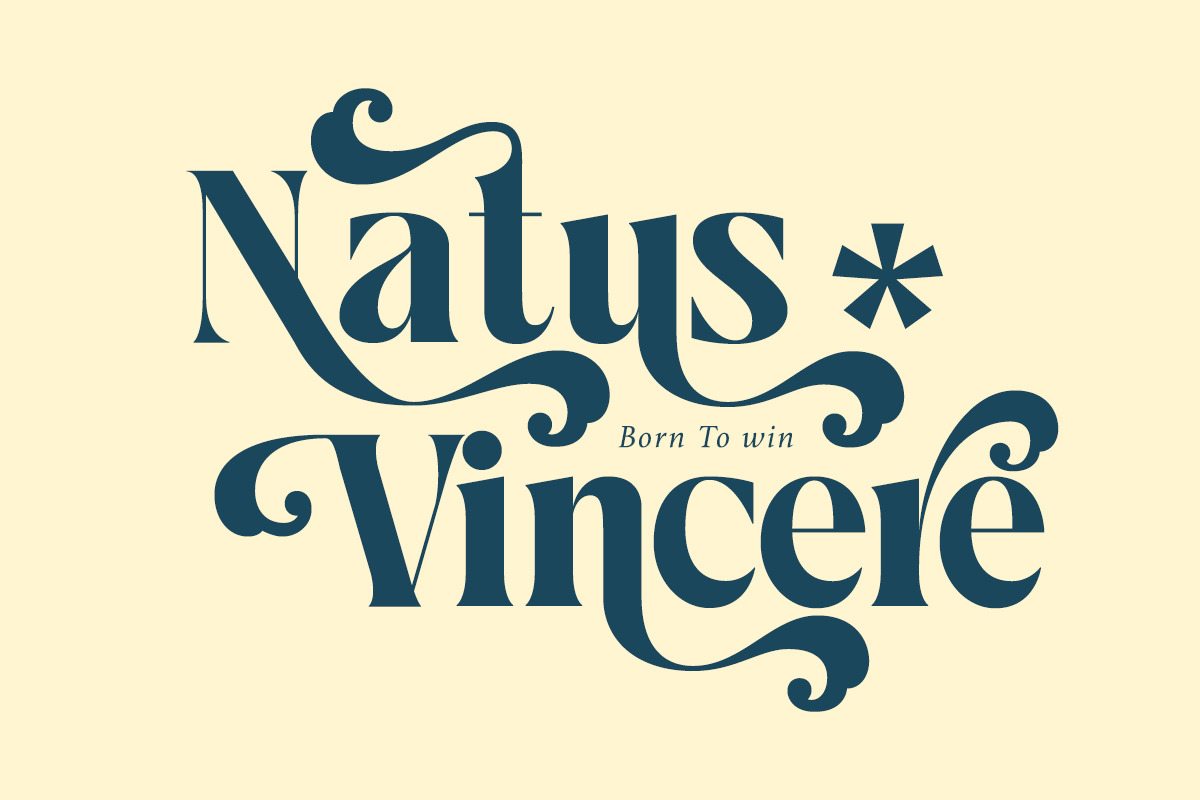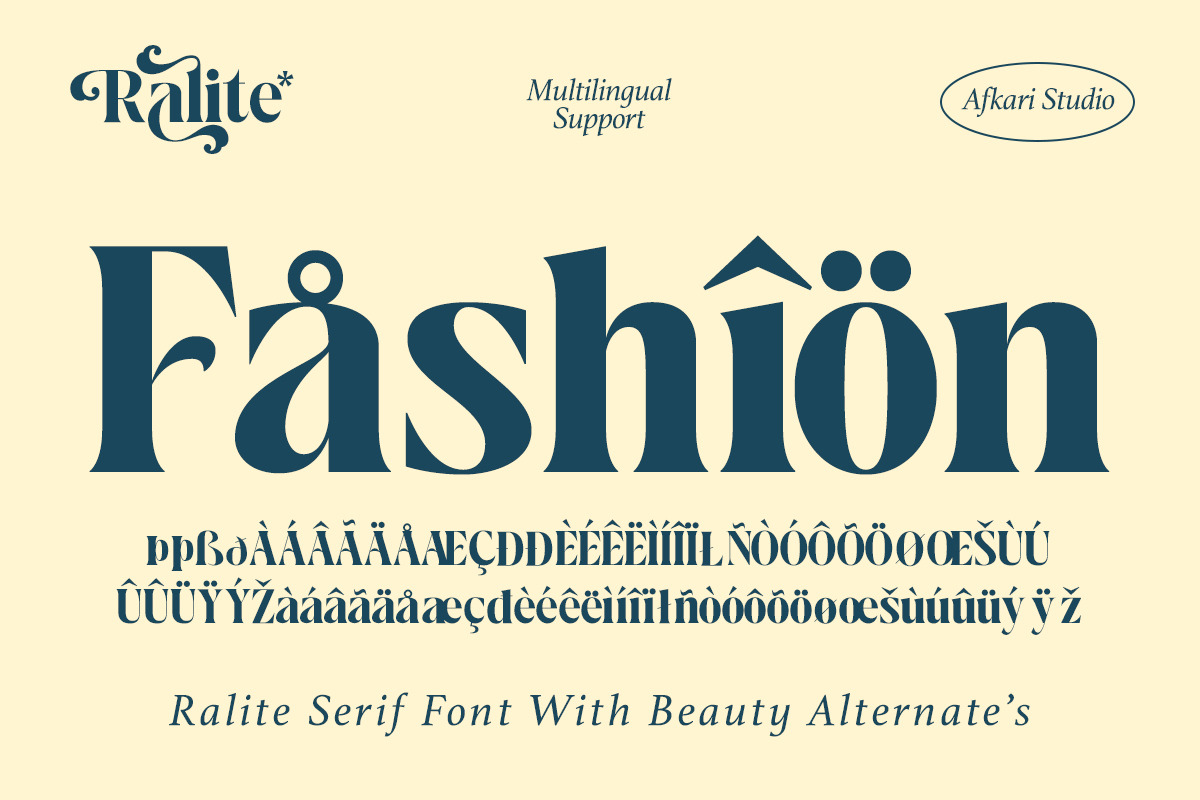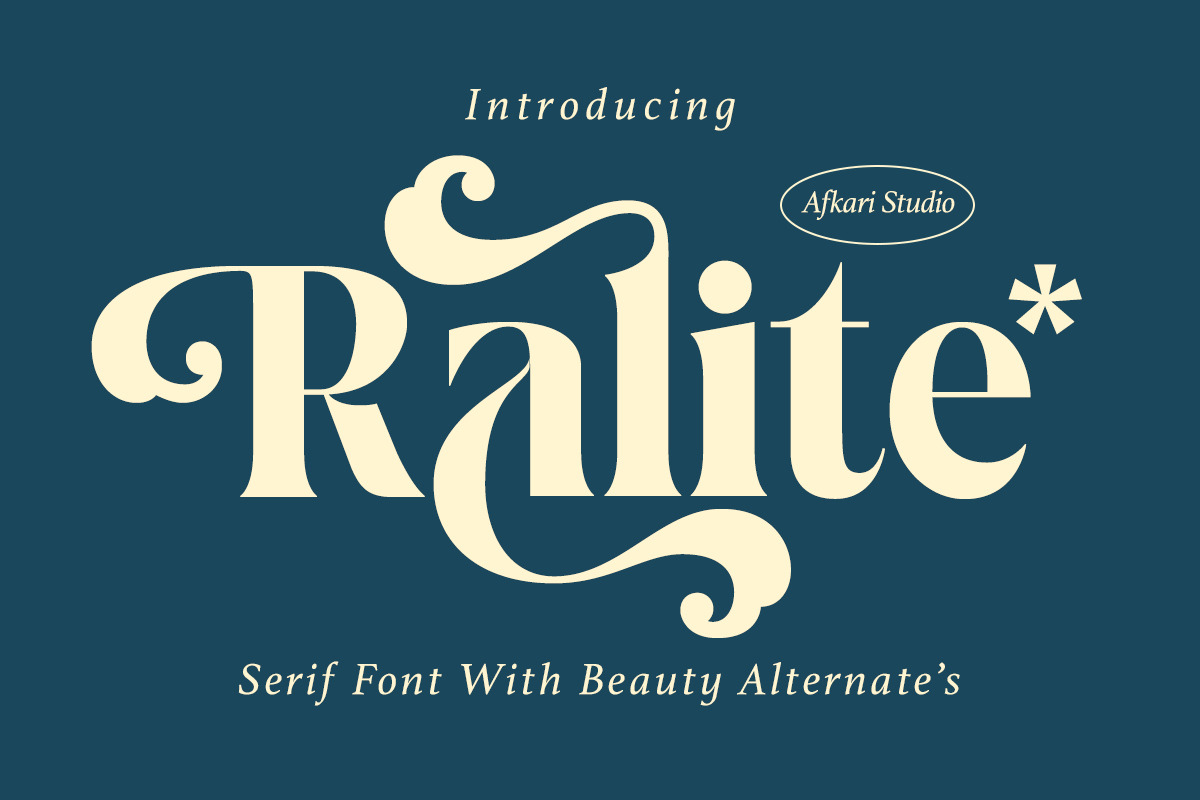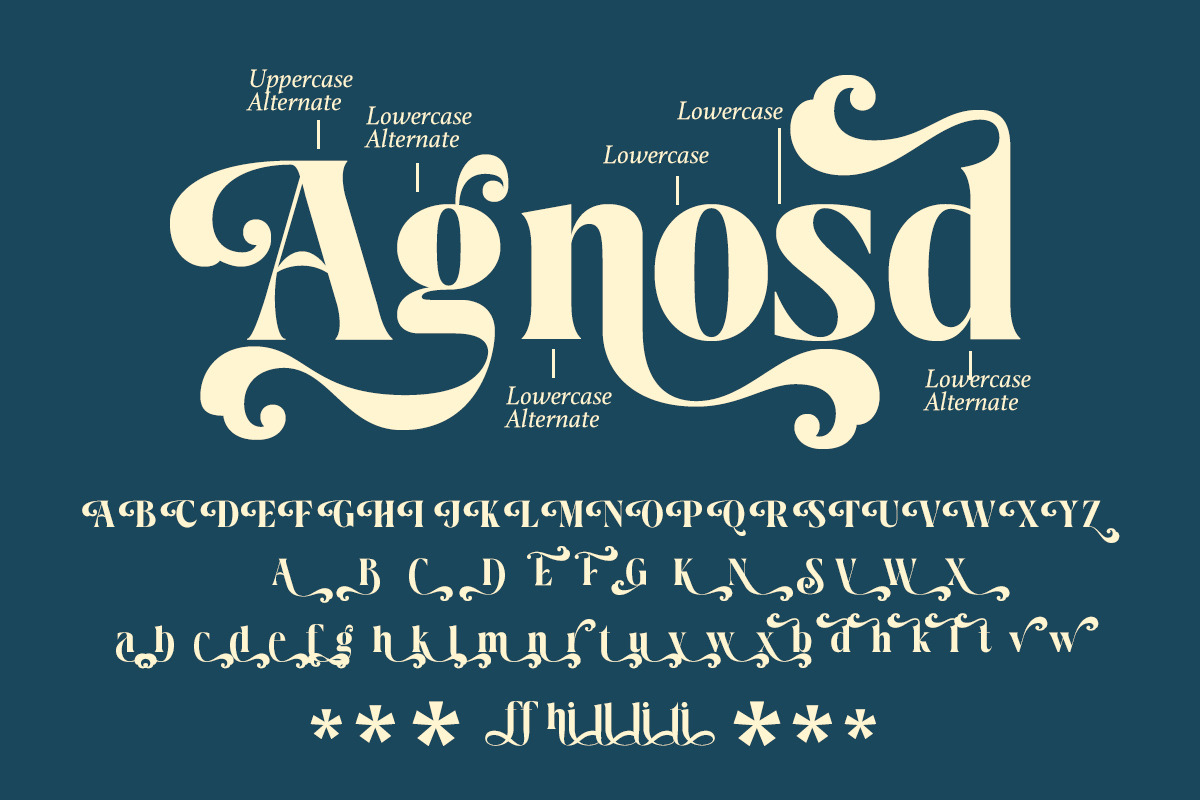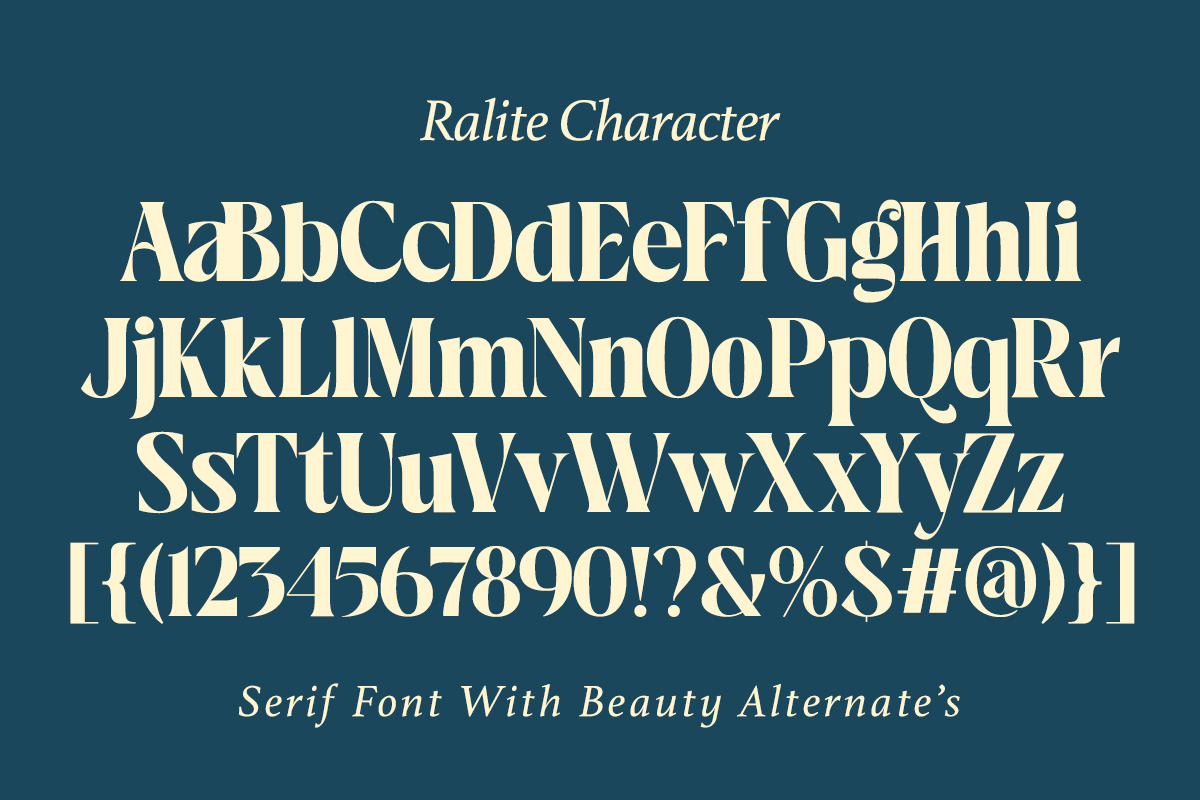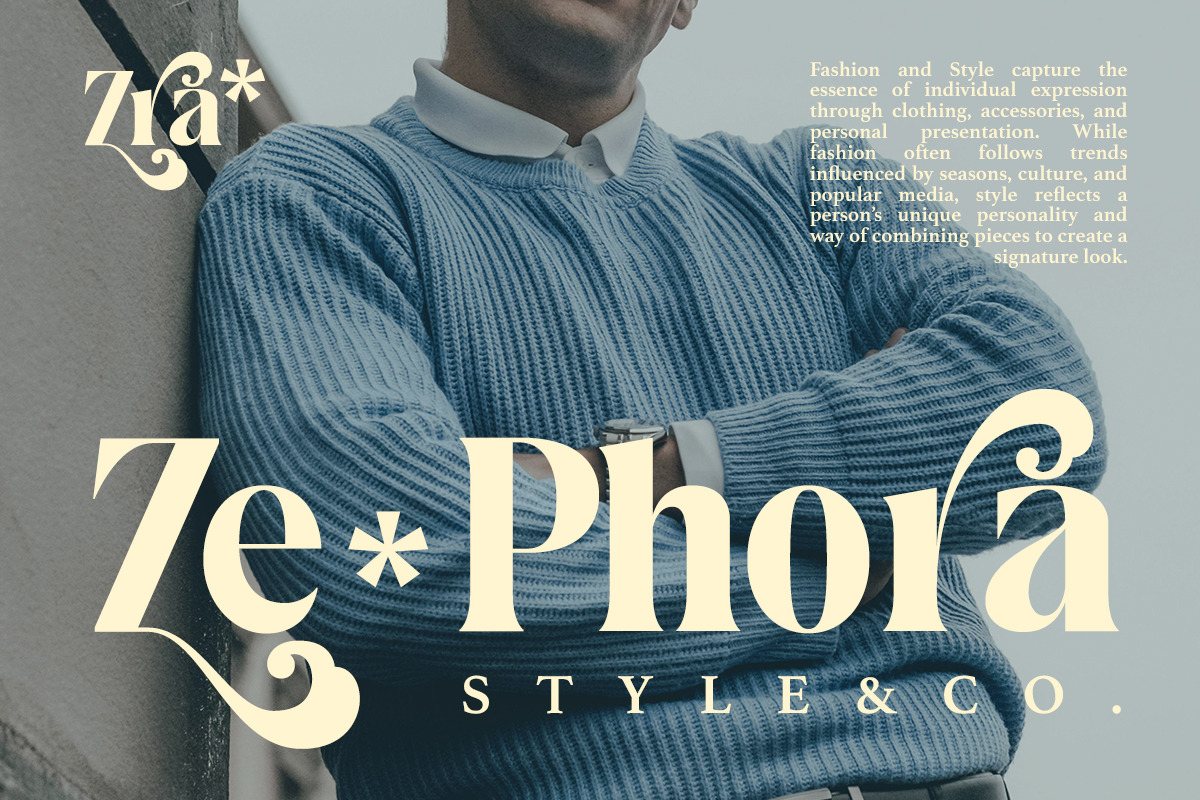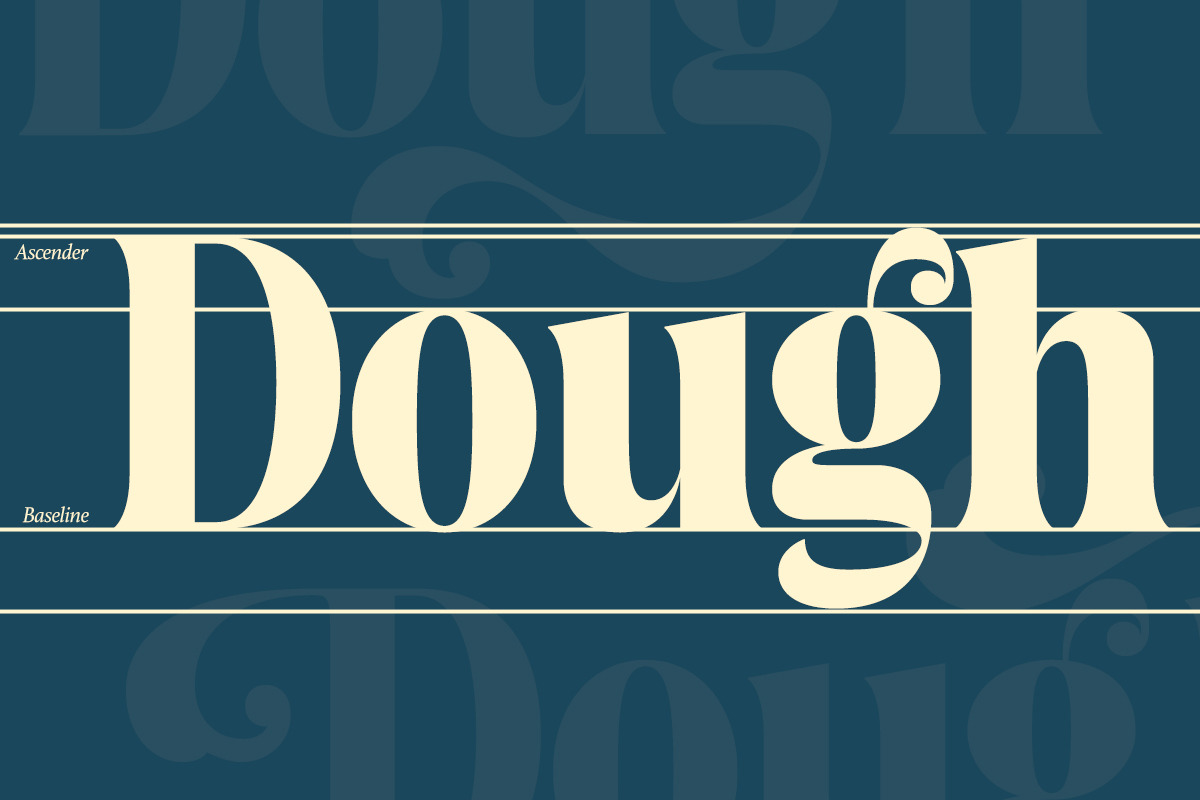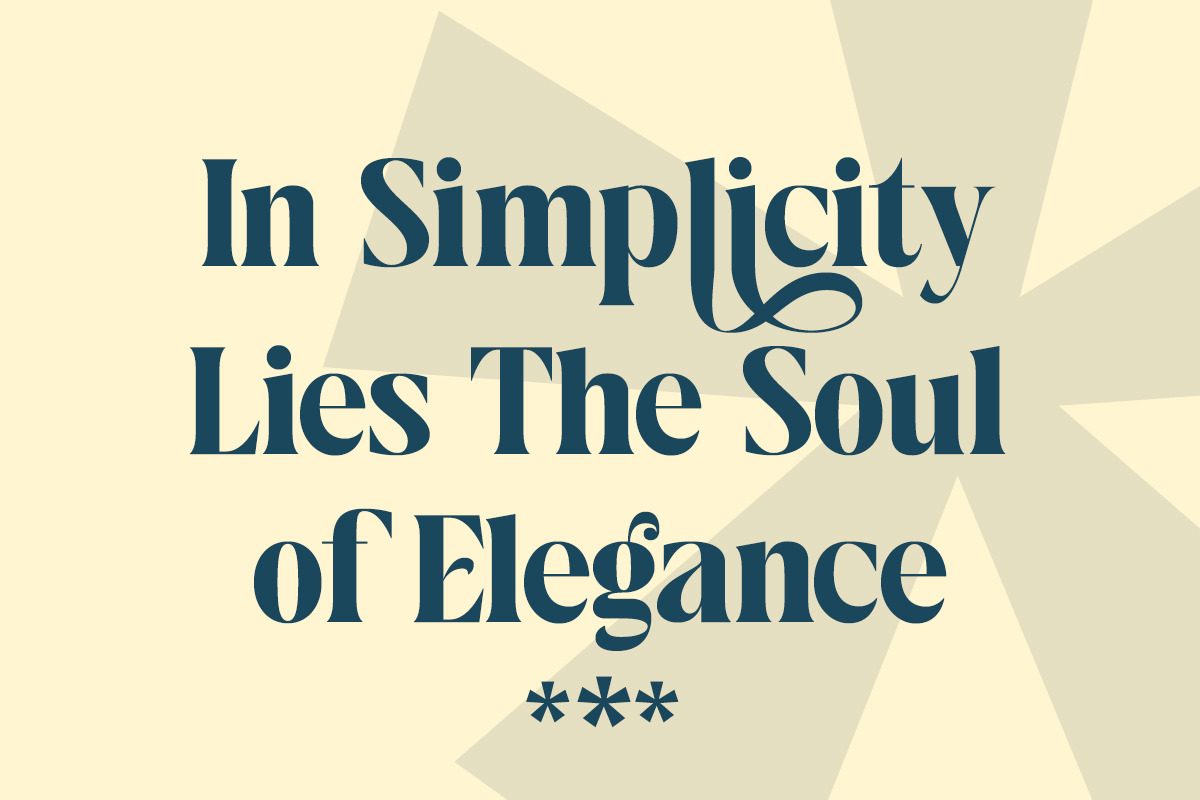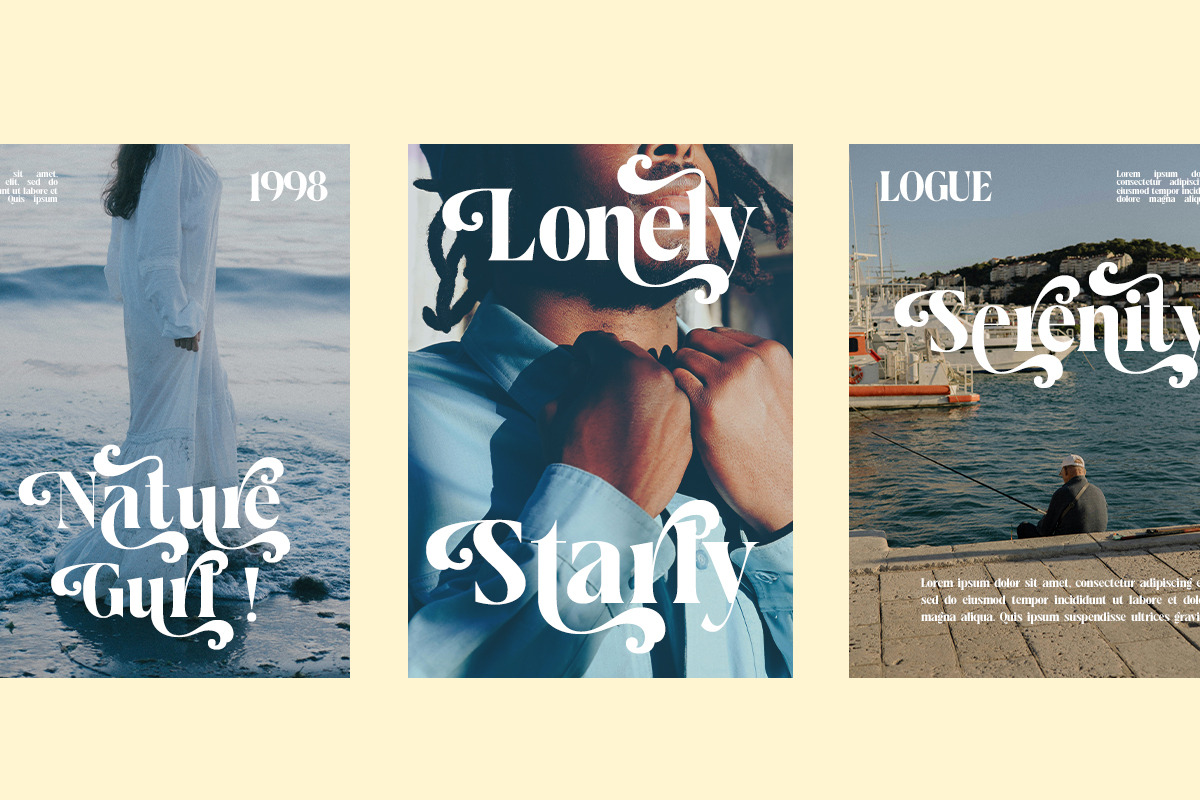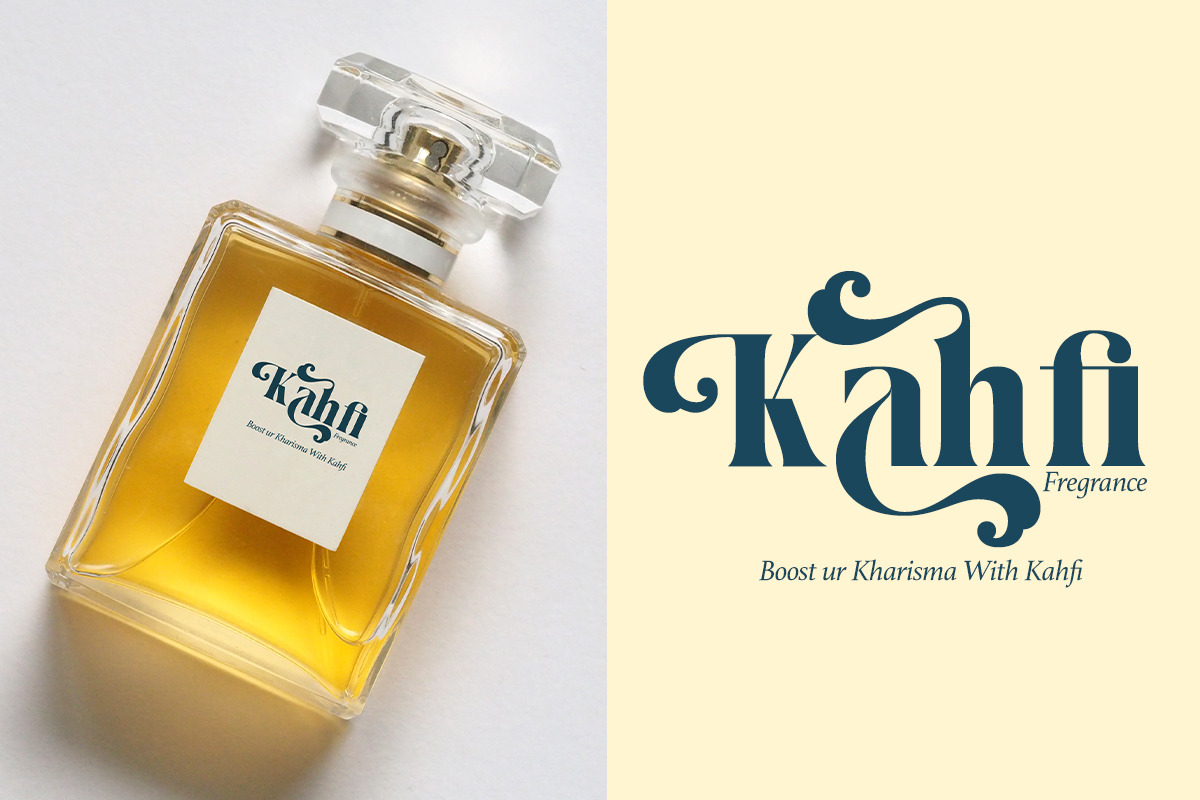
Ralite - Modern Serif Display Font
RALITE - Modern Serif Swashes Font is a sophisticated and elegant typeface that blends contemporary serif styles with unique swash accents. Perfect for branding, editorial designs, logos, and luxurious print materials, RALITE offers a modern yet timeless appeal. Its distinct swashes add a graceful touch, making it ideal for projects requiring a refined and artistic aesthetic.
Highlighted Features:
- Complete set of uppercase and lowercase letters, numerals, and punctuation marks
- Unique alternates and ligatures for enhanced character variation
- Unique Swashes for each alphabet
- Multilingual support including characters such as ä, ö, ü, Ä, Ö, Ü, ß, ¿, and ¡
With its carefully crafted letterforms, RALITE ensures excellent readability while maintaining a sense of elegance and creativity. The versatile design makes it suitable for a wide range of applications, from high-end invitations and packaging to digital campaigns and website headers. Whether used for bold headlines or subtle accents, RALITE brings a striking balance of modernity and charm to any design project.